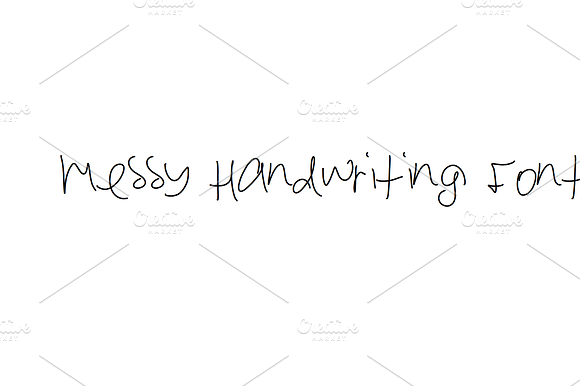
Messy Handwriting Font
Messy Handwriting font is a casual lettering font with a natural feel.
uppercase & lowercase letters
punctuation & ligatures
Messy Handwriting Font by Kaelise Design Studio fits naturally into Branding, posters, packaging, typography.